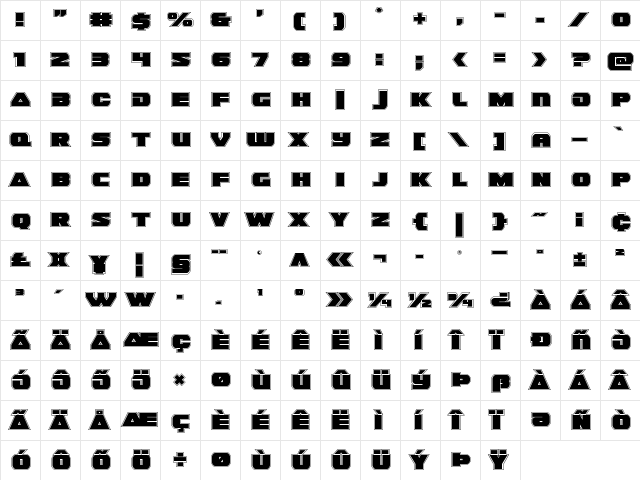
Guardian Academy Regular Font Preview
Guardian Academy Regular
Design Context for Guardian Academy Typeface
Guardian Academy is a composed and adaptable typeface that performs quietly and consistently across a wide range of design contexts.